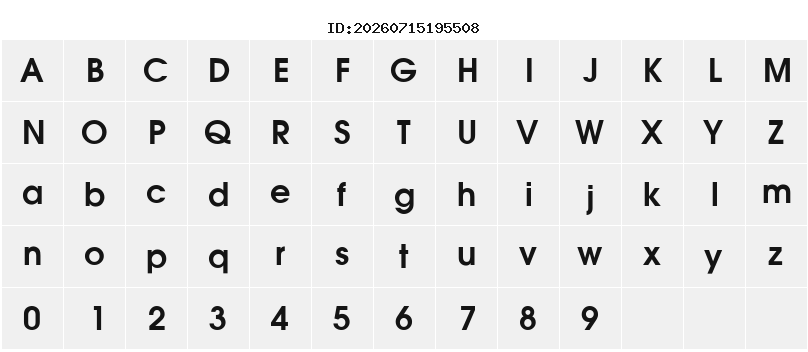
AvantGarde-Demi Preview
• Font Name: AvantGarde-Demi
• Full Font Name: AvantGarde-Demi
• PostScript Name: AvantGarde-Demi
About AvantGarde-Demi.ttf
AvantGarde-Demi.ttf is a modern, elegant sans-serif font designed for ultimate readability and visual harmony. Perfect for branding, headlines, web design, and print materials.